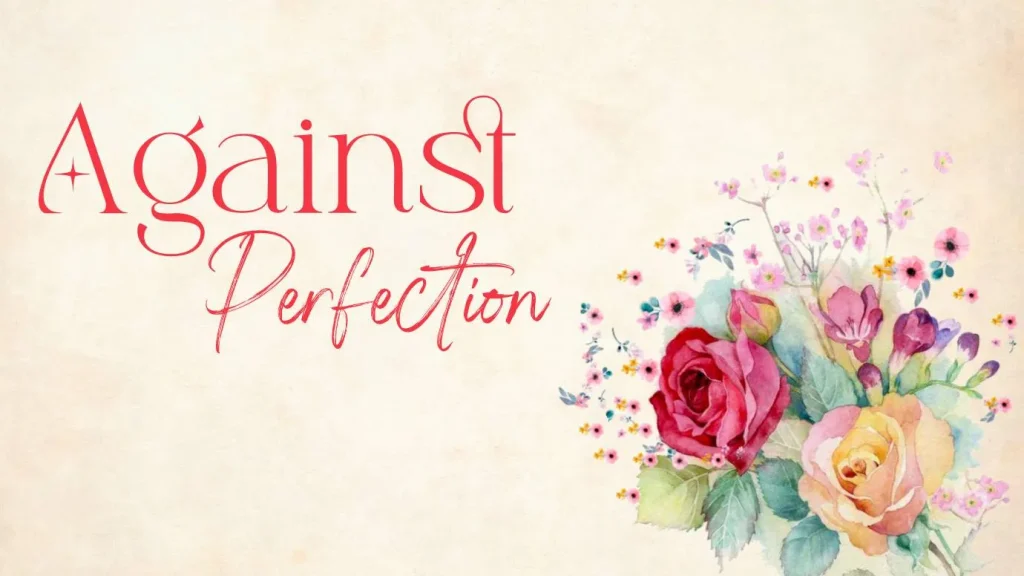
Donis Miftahudin created this nice and amazing text design. Against Perfection Script Font is a flexible typeface that has neat and clean characters that may be a good choice for any content design.
Its powerful letters are ideal for headers and its basic clean style makes it easier to read at small sizes. You may quickly get this font from our site if you’re interested in using it in your upcoming project.
Usage of Against Perfection Script Font in Brands
Many designers have used this typeface to create amazing designs. It is used by many international airlines, colleges, and a global organization that has also used this typeface as their official logo, to name a few important locations where it may be found. It has received a lot of appreciation all across the world.
This typeface is also excellent for documentation and may be used for various assignments, and website headers. It will be ideal for logos, art books, newspaper and magazine headings, postcards, brands, printing on products, and much more. It can also make a great pair with playful font.
Several private projects can be done while using this stunning font, it is the best option for creating website designs, channel designs, and thumbnails. It is highly recommended for logo designing and for any kind of brand name and blog design.
What kind of Against Perfection Script font is?
This typeface belongs to the script style category. The flexible typeface has neat and clean characters.
Who is the Against Perfection Script Font’s designer?
Donis Miftahudin is the creator of this amazing font category.